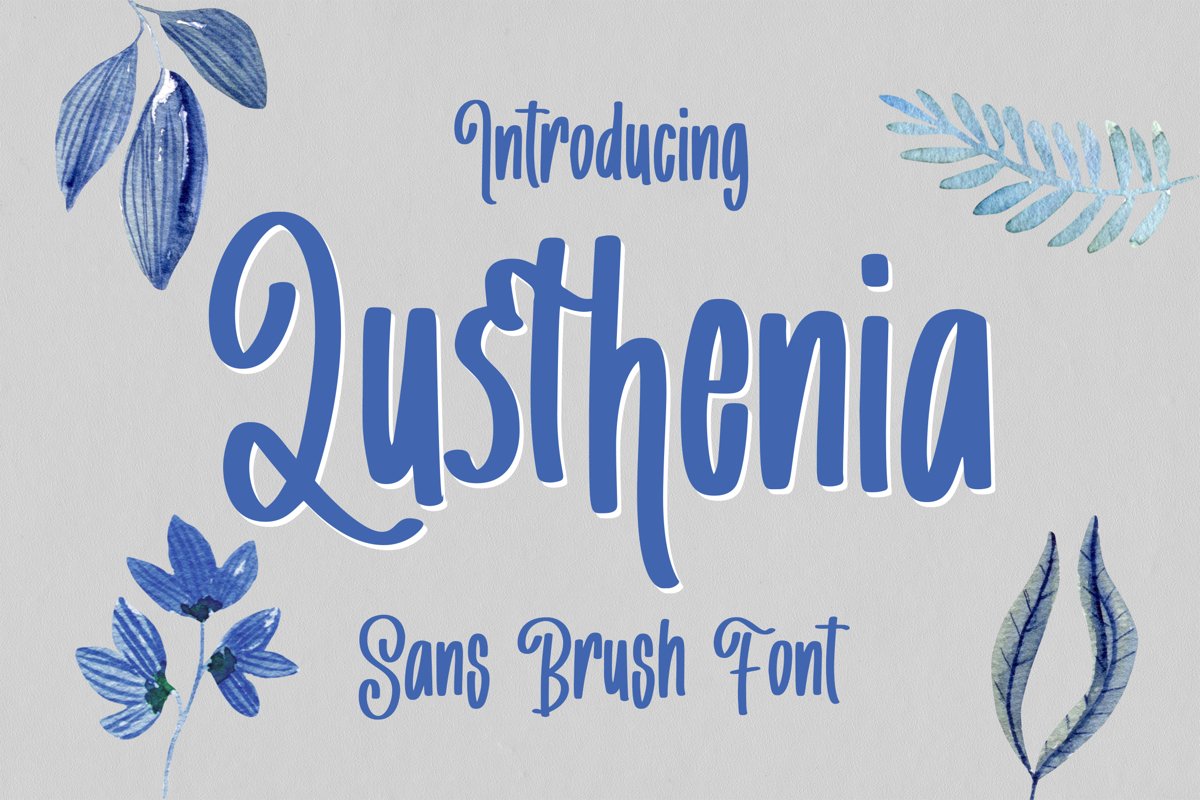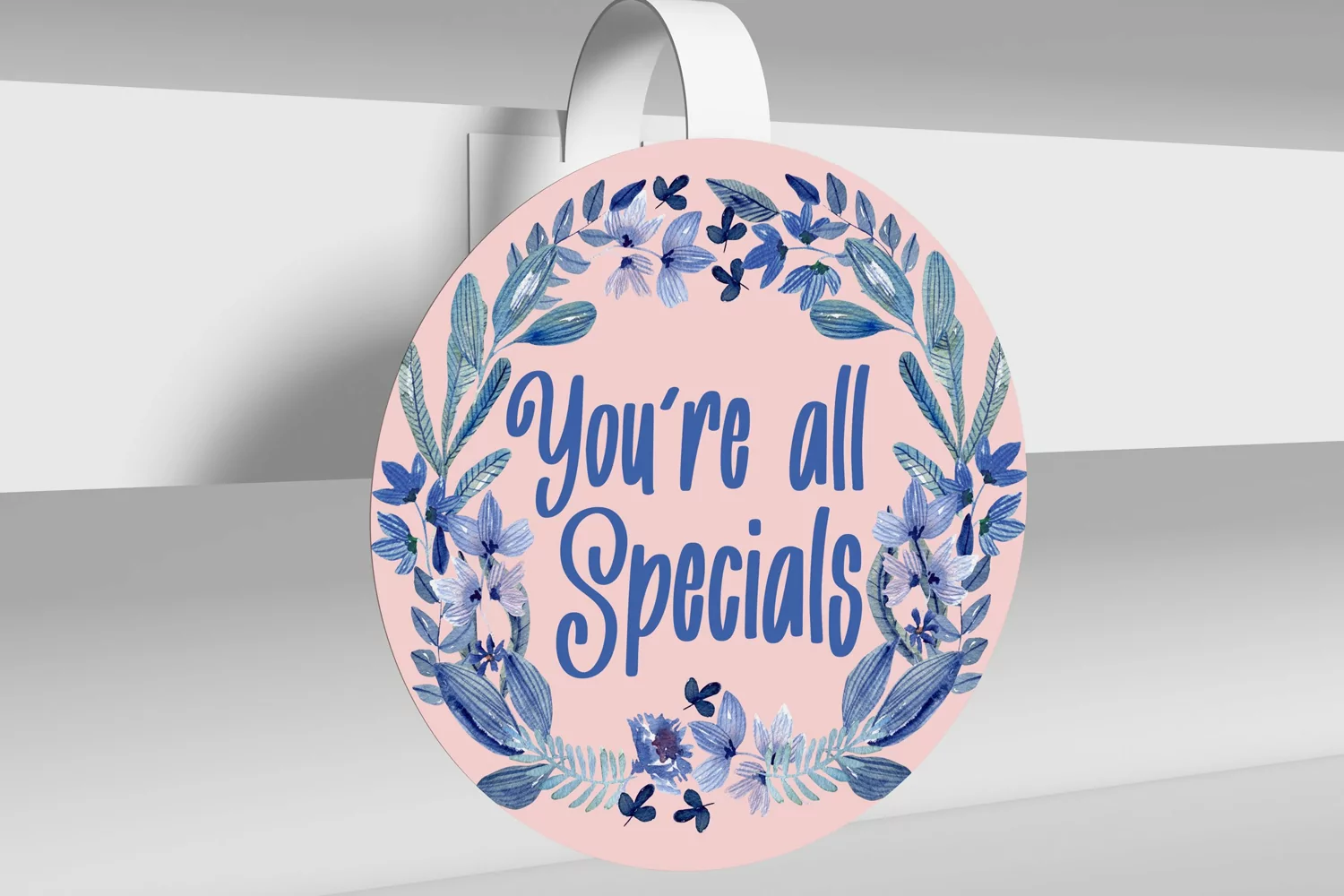
Lusthenia - Sans Brush Font that contain lowercase, uppercase, symbol, and also support multi language. There’s a lot ligatures in this font. This Font also comes with ligatures, alternates and many more. this font suitable for fashion, branding, catalog and other design what you want.
Lusthenia